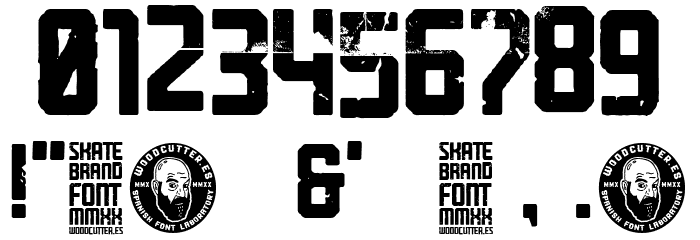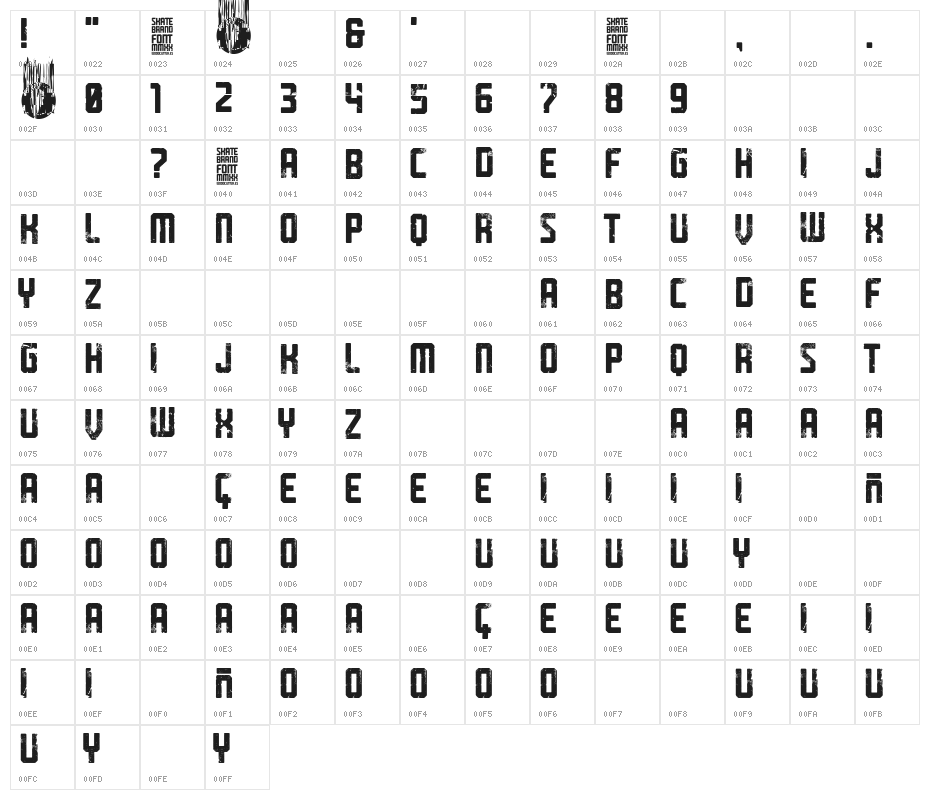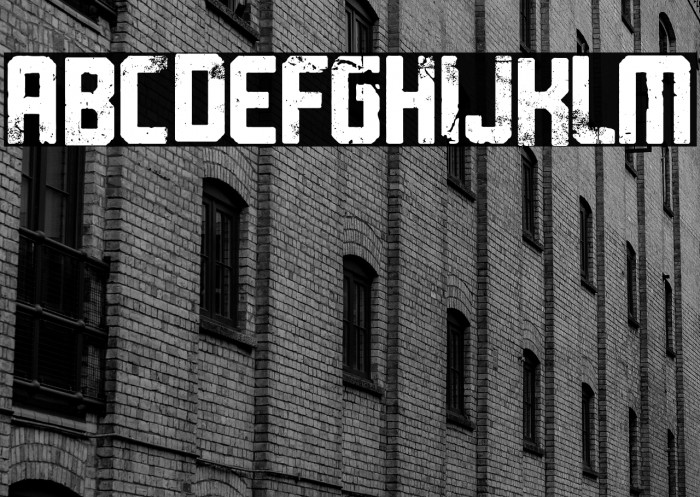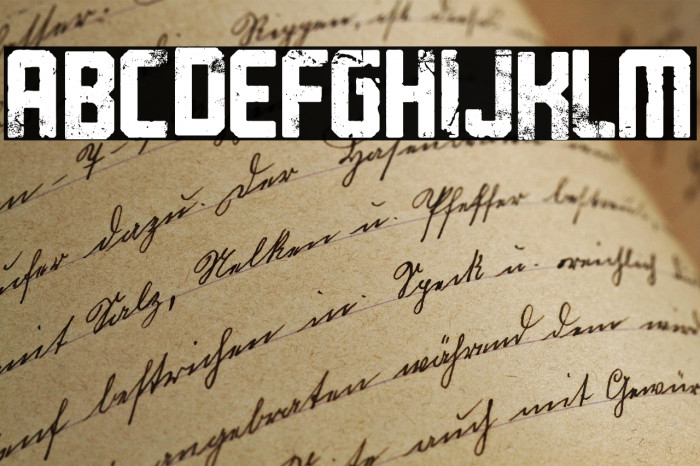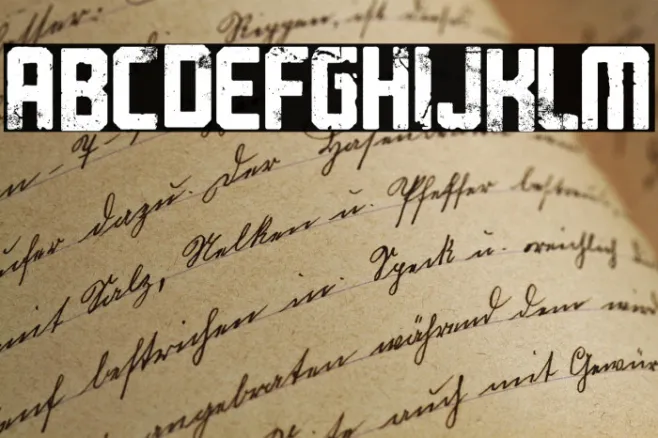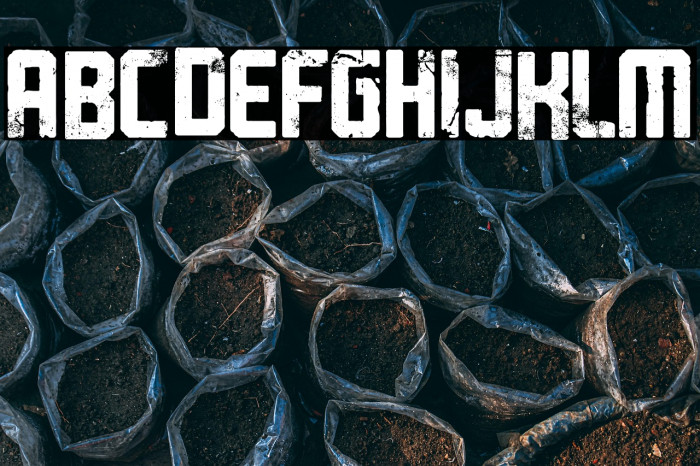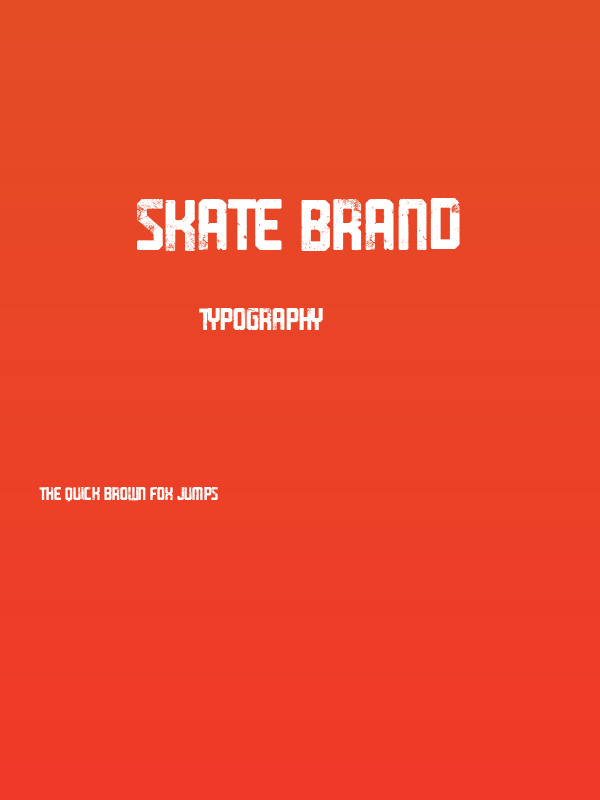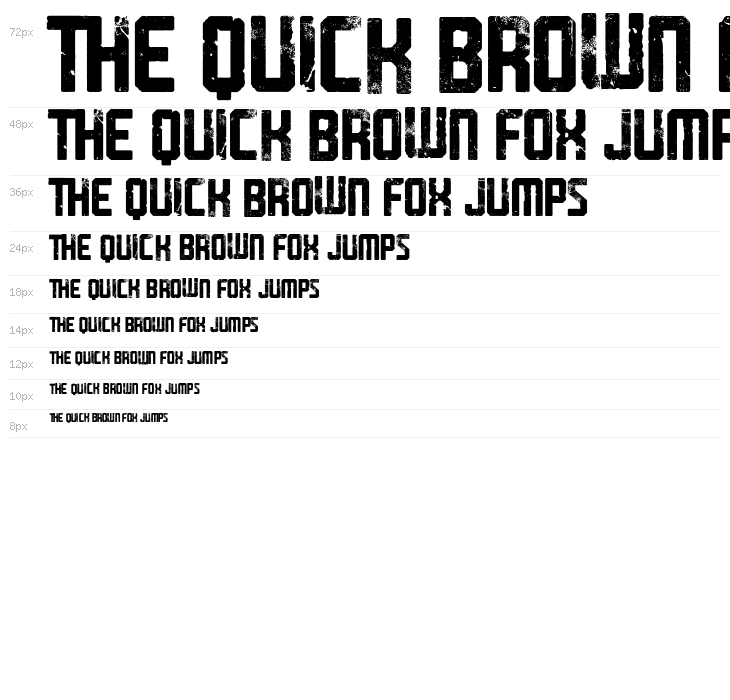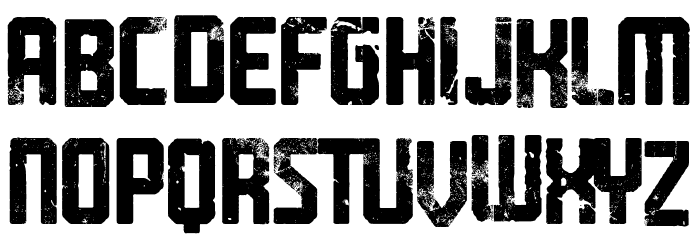
Skate Brand Font
Skate Brand Description
This font features a bold, distressed style that evokes a rugged, urban aesthetic. The characters are blocky and robust, with a textured appearance that suggests wear and tear, making it ideal for projects that require a gritty, edgy look. The uppercase and lowercase letters maintain a consistent height, contributing to a uniform appearance. The numerals and special characters are designed with the same distressed effect, ensuring cohesion across all elements. This font is perfect for creating impactful headlines, posters, and branding materials that aim to capture a rebellious or alternative vibe.
| Overall Style | Urban, Edgy, Distressed |
| Proposed Projects | Ideal for skateboarding brands, urban-themed posters, edgy apparel designs, and alternative music album covers. |